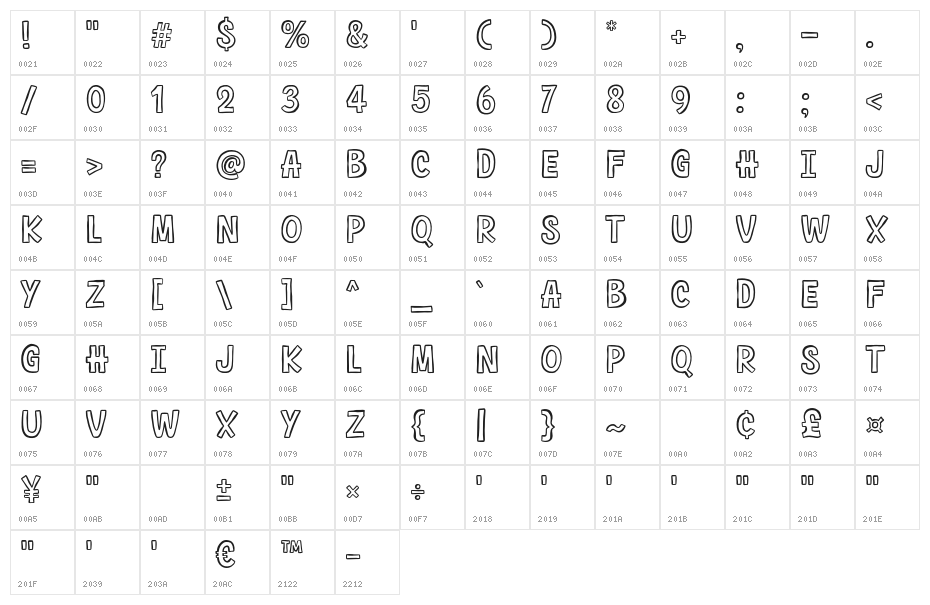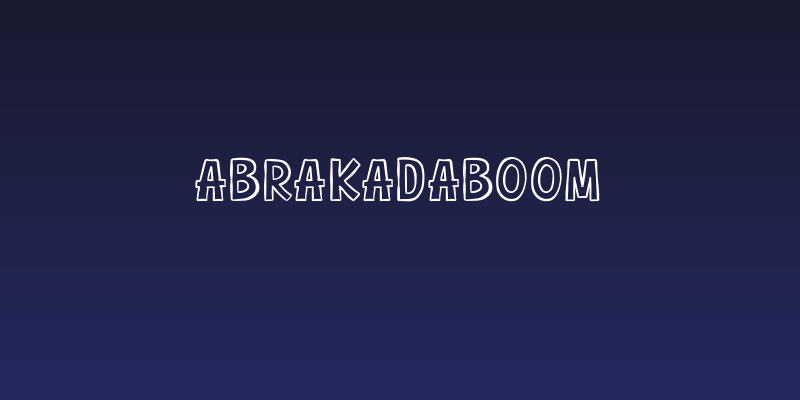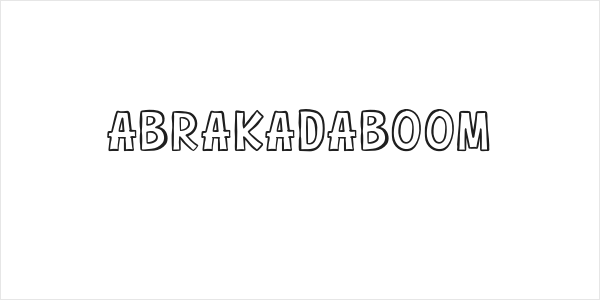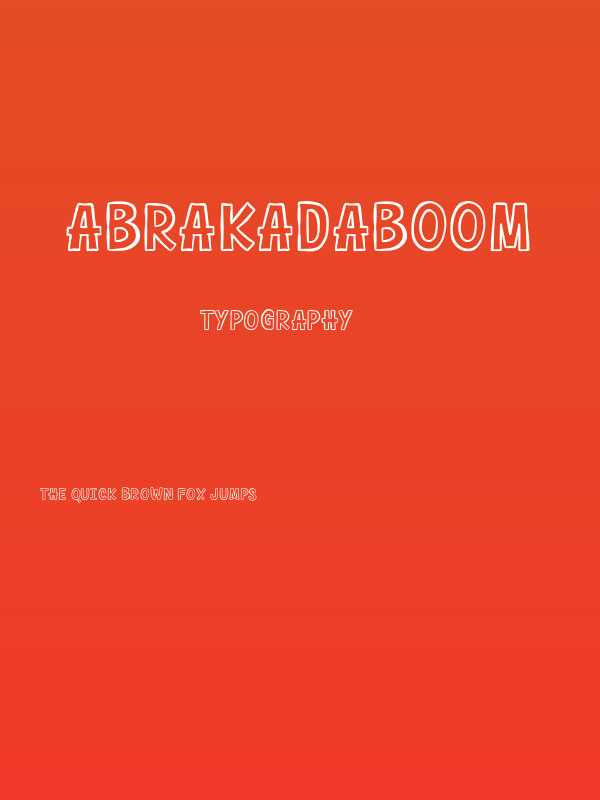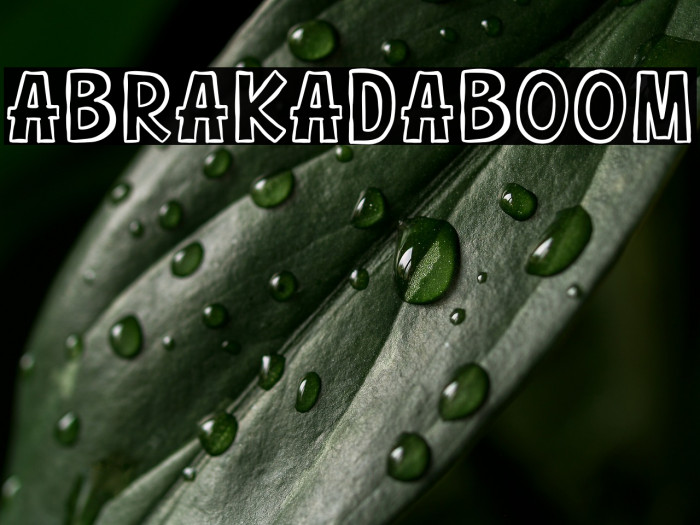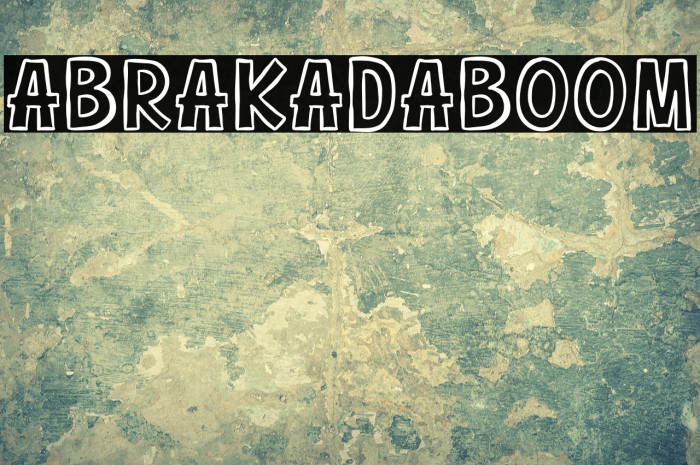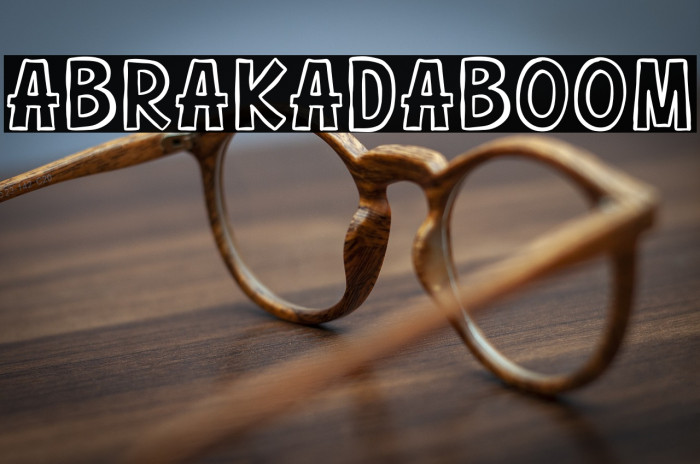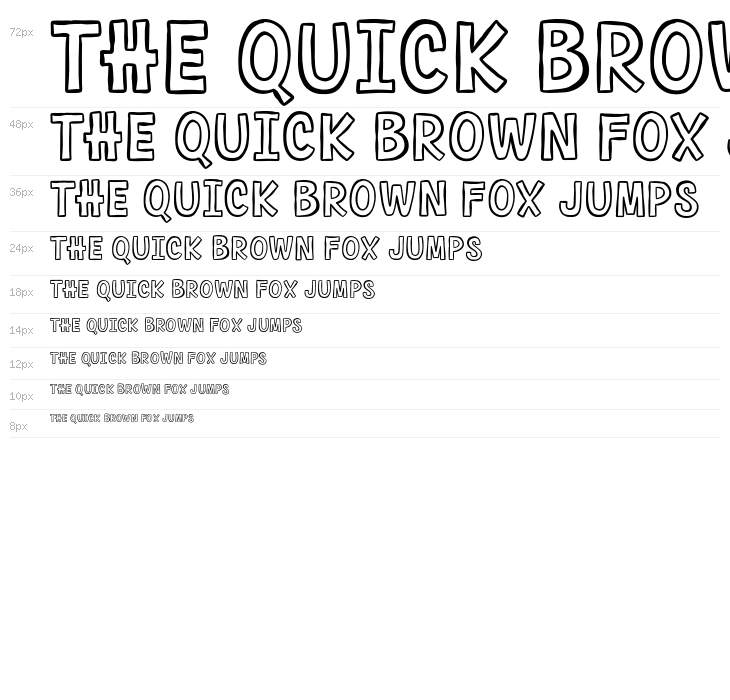
Abrakadaboom Font
Abrakadaboom Description
This playful and bold font features a hand-drawn, cartoonish style with thick outlines that give it a lively and energetic appearance. The characters are uppercase and lowercase letters, numbers, and a variety of special symbols, all maintaining a consistent, whimsical design. The font's unique personality is conveyed through its irregular, slightly wobbly lines, which add a sense of fun and creativity. The overall look is informal and friendly, making it perfect for projects that require a touch of humor or lightheartedness. Its boldness ensures that it stands out, while the playful curves and angles provide a sense of movement and dynamism.
| Overall Style | Playful, Cartoonish, Hand-drawn |
| Proposed Projects | Ideal for children's books, comic strips, playful branding, party invitations, and creative posters. |